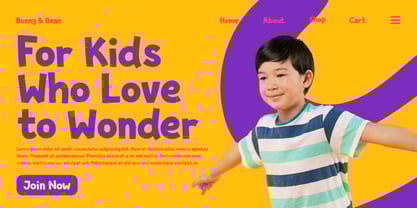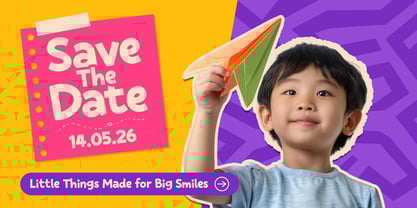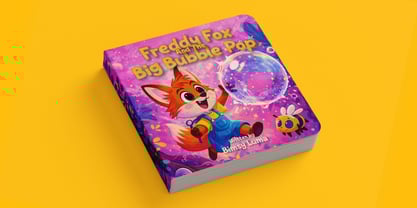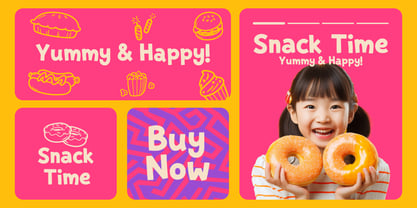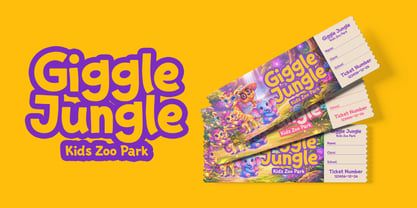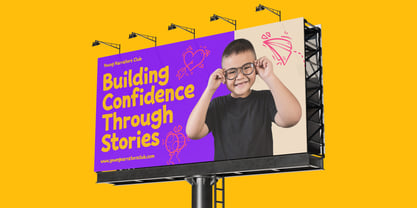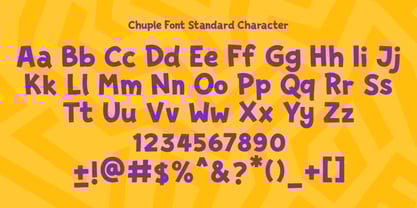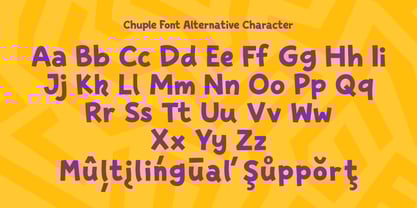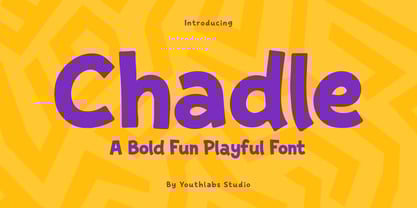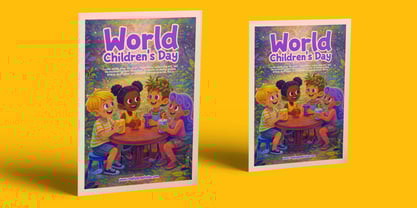
Chadle
by Youthlabs
The Chadle Font Family was designed by Fathi Al Ghazi and published by Youthlabs. Chadle contains 4 styles and family package options. More about this family
Chadle is a bold, fun, and playful display font designed to bring joy and energy to your designs. With chunky shapes, rounded curves, and a friendly personality, Chadle is perfect for kids branding, playful logos, packaging, posters, educational content, and cheerful headlines. Its vibrant style makes any message feel approachable, creative, and full of character.